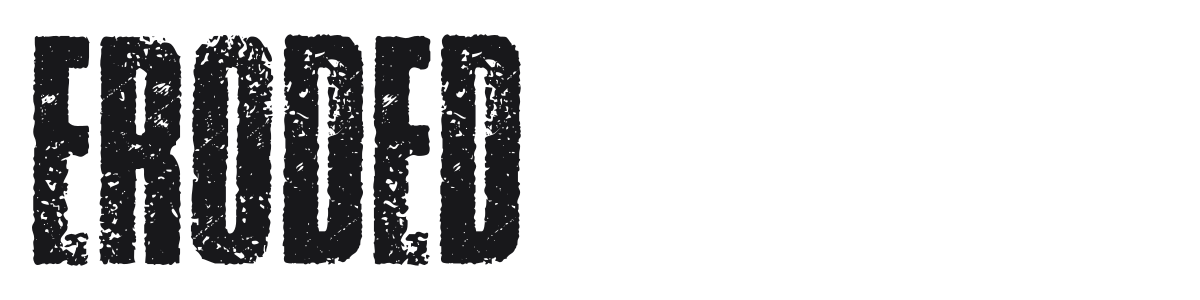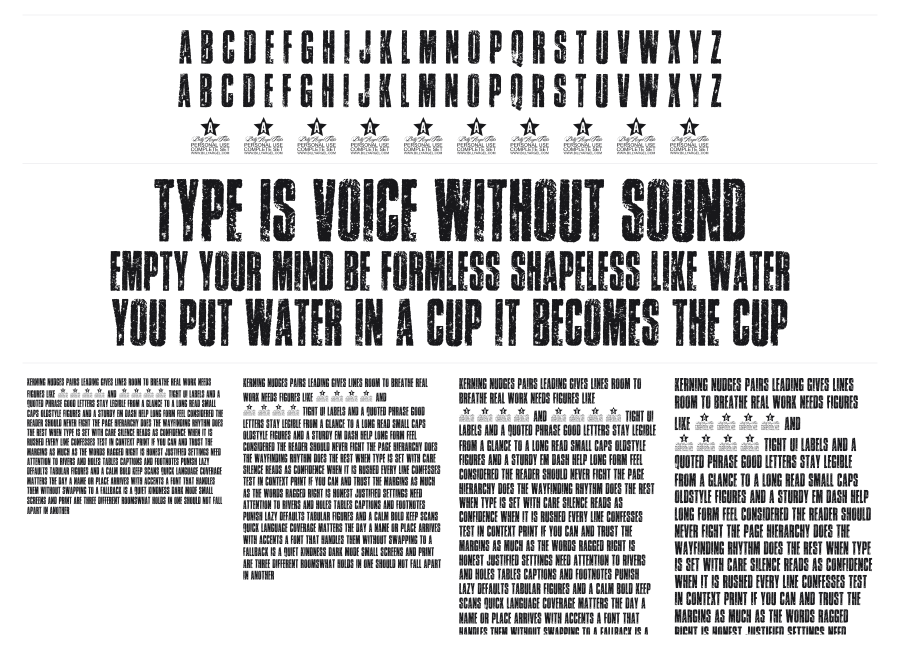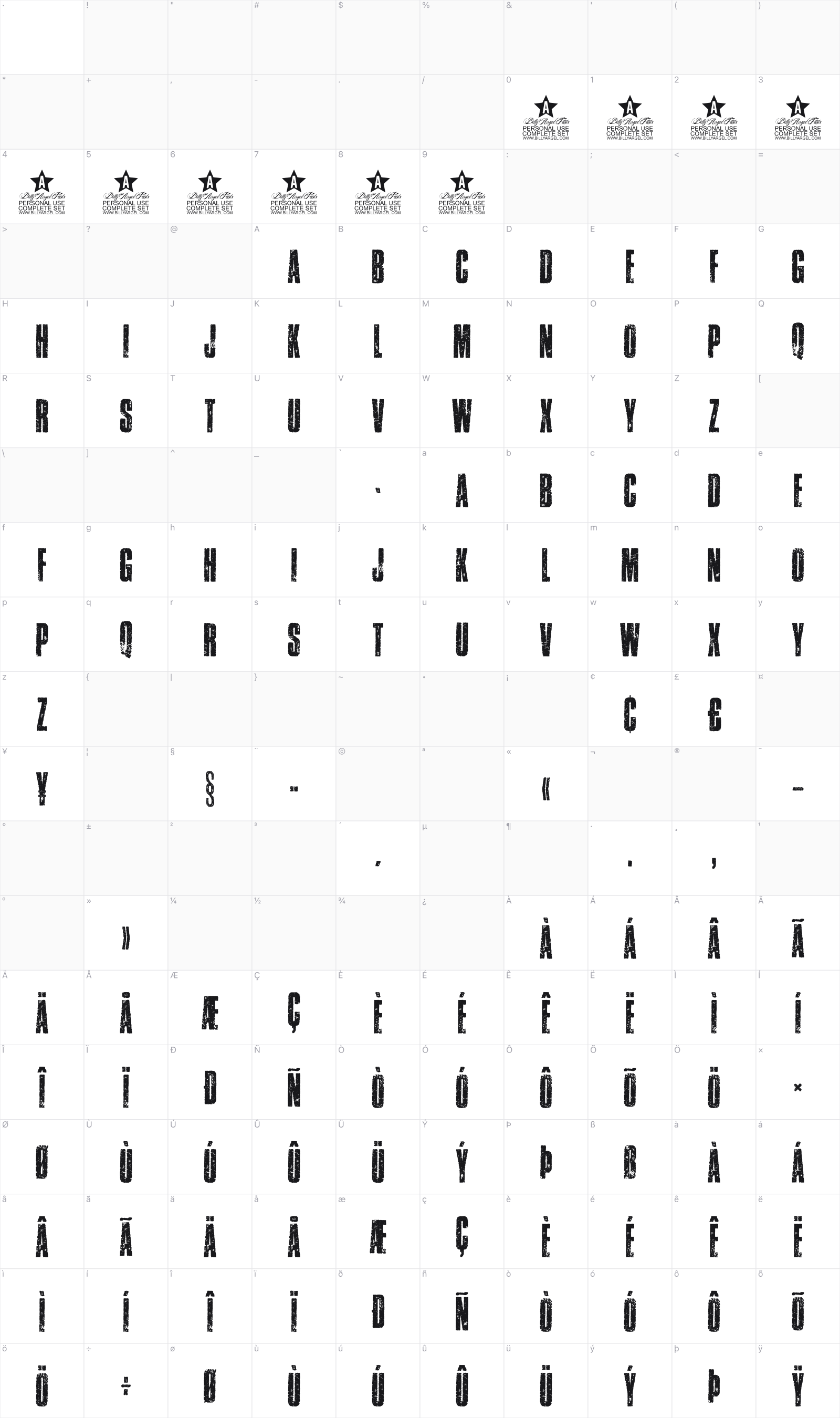
Eroded
Eroded is a condensed bold display font by Billy Argel built around heavy distress texture that tears into every stroke. The crumbling, ink-degraded surface evokes worn posters, wartime stencils, or underground press ephemera. It hits hard at large sizes and suits any project that needs raw, unpolished intensity.